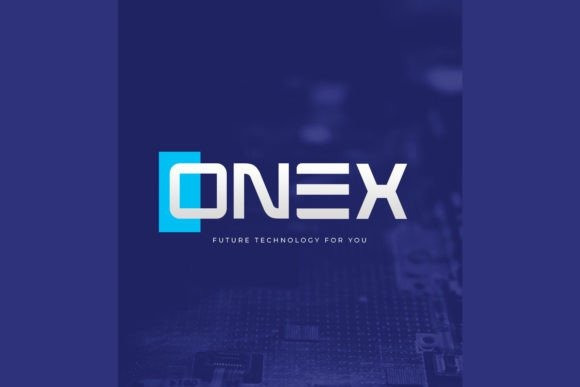
Venus Plant Font
Venus Plant Font is a clean and modern futuristic font. The smooth and light execution makes this font look sleek and elegant, feminine which is perfect for girly branding designs. It can easily be matched to an incredibly large set of projects, so add it to your creative ideas and notice how it makes them stand out!